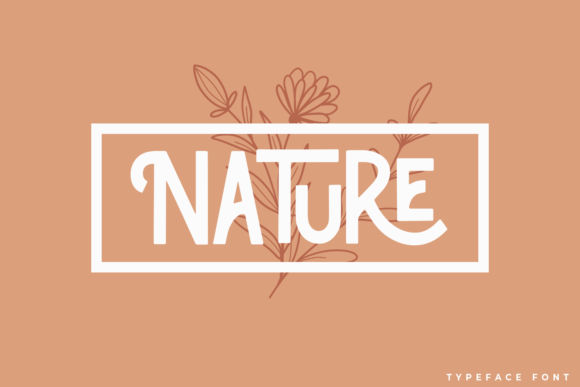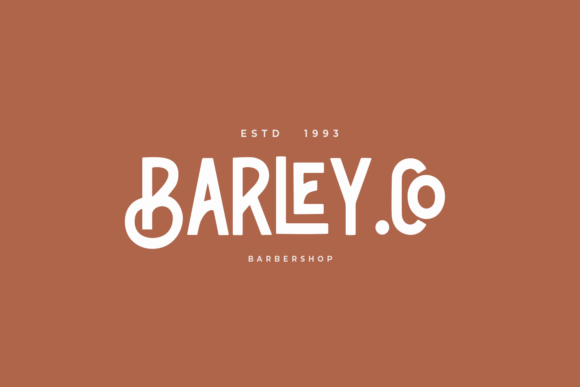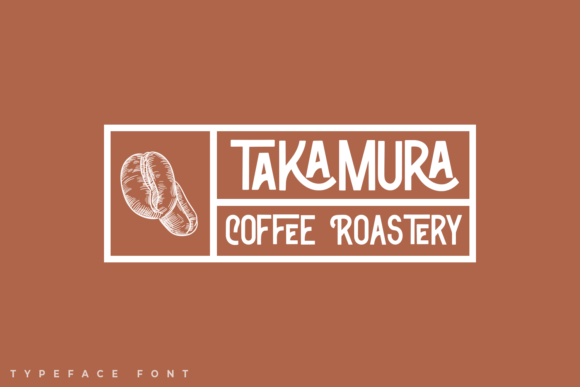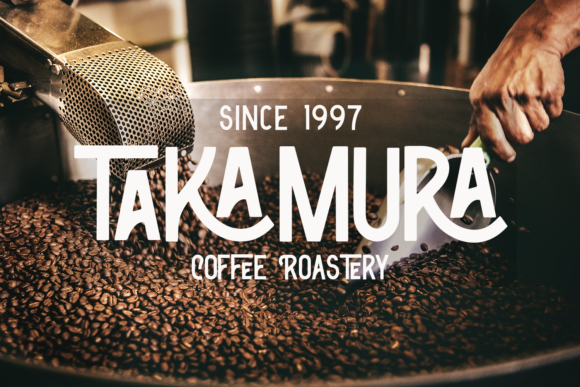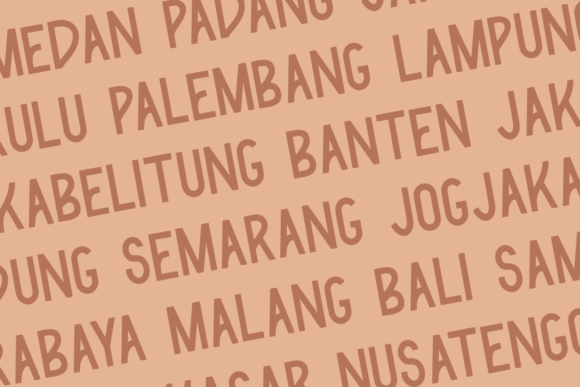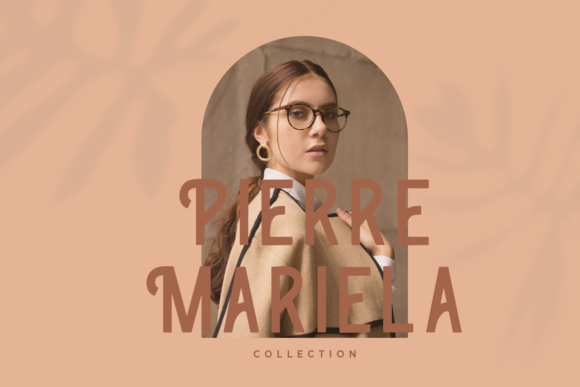
Introducing Classic Bronze Font: Elevate Your Crafting Ideas with Elegance
Are you a designer, crafter, or DIY enthusiast looking for a font that exudes classic elegance and sophistication? Look no further than Classic Bronze Font, a stunning display font that can elevate a wide range of crafting ideas, from cards and branding to labels and more. In this article, we’ll explore the features and benefits of Classic Bronze Font, and show you how to make the most of this versatile and beautiful font.
What is Classic Bronze Font?
Classic Bronze Font is a carefully crafted display font that embodies the essence of classic elegance. Its unique design combines the warmth of bronze with the sophistication of traditional typography, making it perfect for a variety of creative projects. Whether you’re looking to add a touch of luxury to your branding, create stunning card designs, or craft beautiful labels, Classic Bronze Font is the perfect choice.
Key Features of Classic Bronze Font
- Classic and Elegant Design: Classic Bronze Font boasts a timeless design that evokes the feeling of luxury and sophistication.
- Versatile: This font is perfect for a wide range of crafting ideas, from cards and branding to labels and more.
- High-Quality: This font is crafted with attention to detail, ensuring a high-quality finish that will impress.
How to Use Classic Bronze Font
- Card Making: Add a touch of elegance to your card designs with Classic Bronze Font. Perfect for special occasions, such as weddings, birthdays, and holidays.
- Branding: Elevate your brand with a sophisticated logo or label design featuring Classic Bronze Font.
- Label Making: Create beautiful labels for your products, gifts, or storage containers with Classic Bronze Font.
- Digital Design: Use Classic Bronze Font in your digital designs, such as social media graphics, blog posts, and more.
Tips and Tricks for Working with Classic Bronze Font
Here are a few tips and tricks to help you get the most out of Classic Bronze Font:
- Experiment with Colors: Classic Bronze Font looks stunning in a range of colors, from metallic gold and silver to rich jewel tones.
- Play with Texture: Add depth and interest to your designs by combining Classic Bronze Font with different textures, such as paper, fabric, or wood.
- Mix and Match: Combine Classic Bronze Font with other fonts and design elements to create unique and eye-catching designs.
Why Choose Classic Bronze Font?
So why choose Classic Bronze Font over other fonts? Here are just a few reasons:
- Unique Design: Classic Bronze Font boasts a unique and elegant design that will set your creations apart.
- Versatility: This font is perfect for a wide range of crafting ideas, making it a great addition to your design toolkit.
- High-Quality: Classic Bronze Font is crafted with attention to detail, ensuring a high-quality finish that will impress.
Classic Bronze Font is a classic and elegant display font that can elevate a wide range of crafting ideas, from cards and branding to labels and more. With its unique design, versatility, and high-quality finish, this font is perfect for designers, crafters, and DIY enthusiasts looking to add a touch of luxury to their creations. So why wait? Download Classic Bronze Font today and start creating stunning designs that will leave a lasting impression.